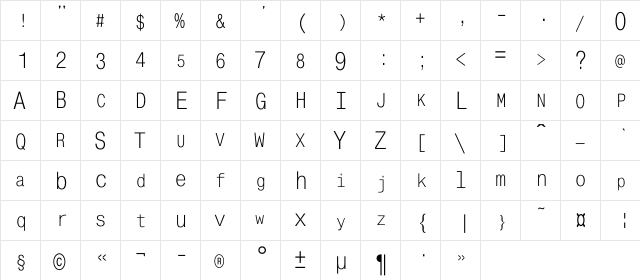
MonoCondensedZoomC Regular
Design Context for MonoCondensedZoomC Typeface
MonoCondensedZoomC brings the precise, column-aligned rhythm of monospaced typography to designs that value technical clarity and systematic order.
Pro Tip: Pair MonoCondensedZoomC with a proportional sans for UI contexts where code-style labels and regular body copy need to coexist.